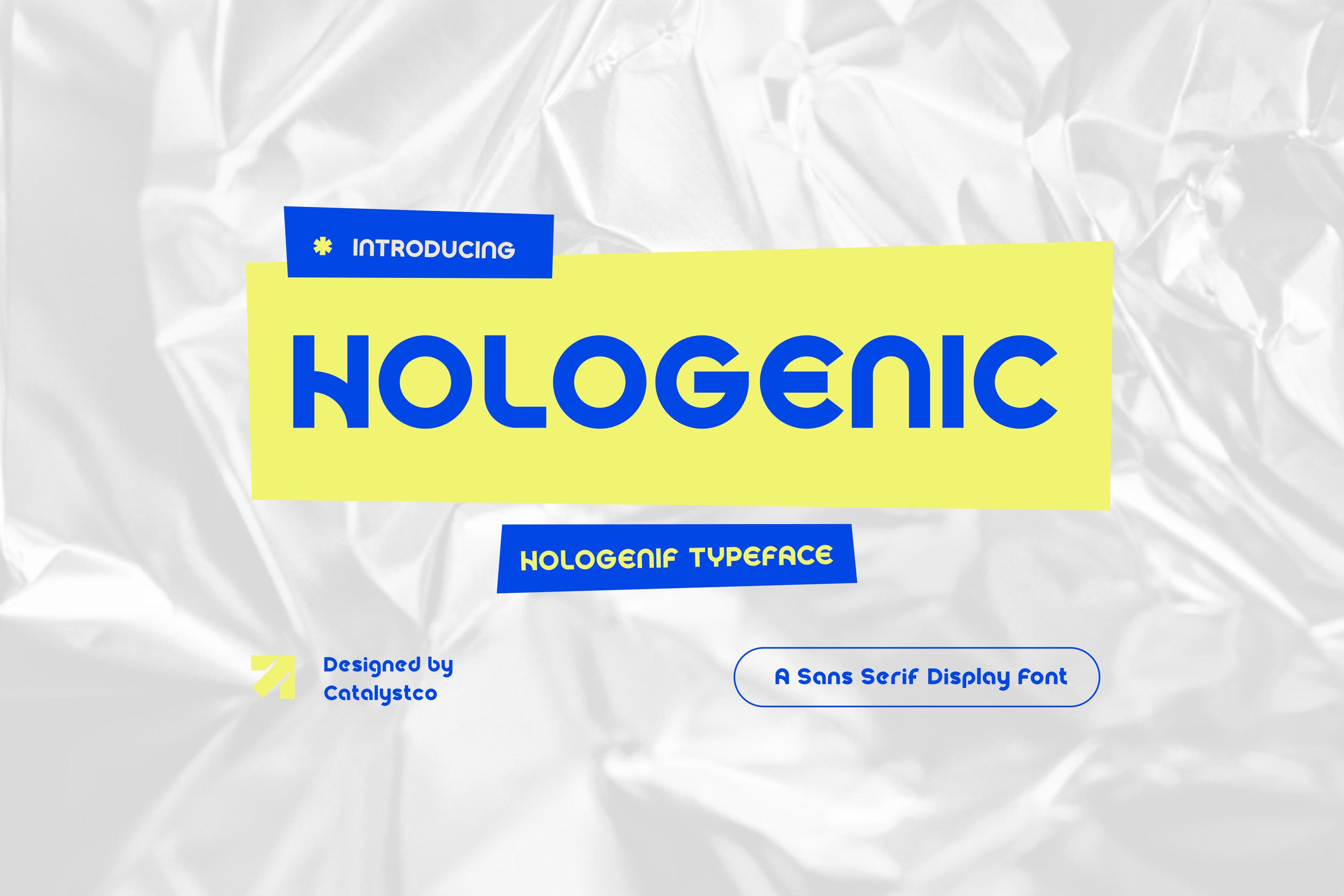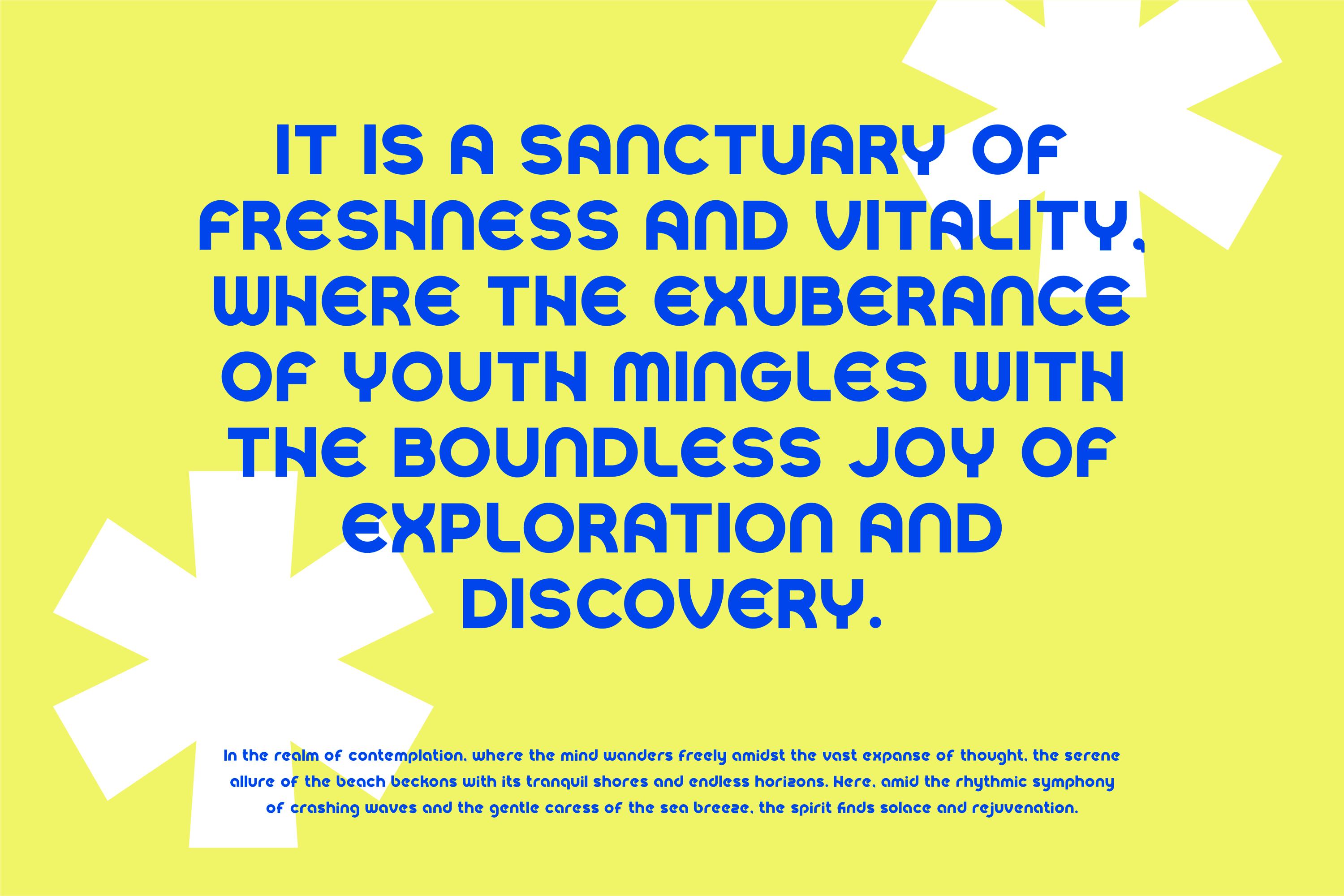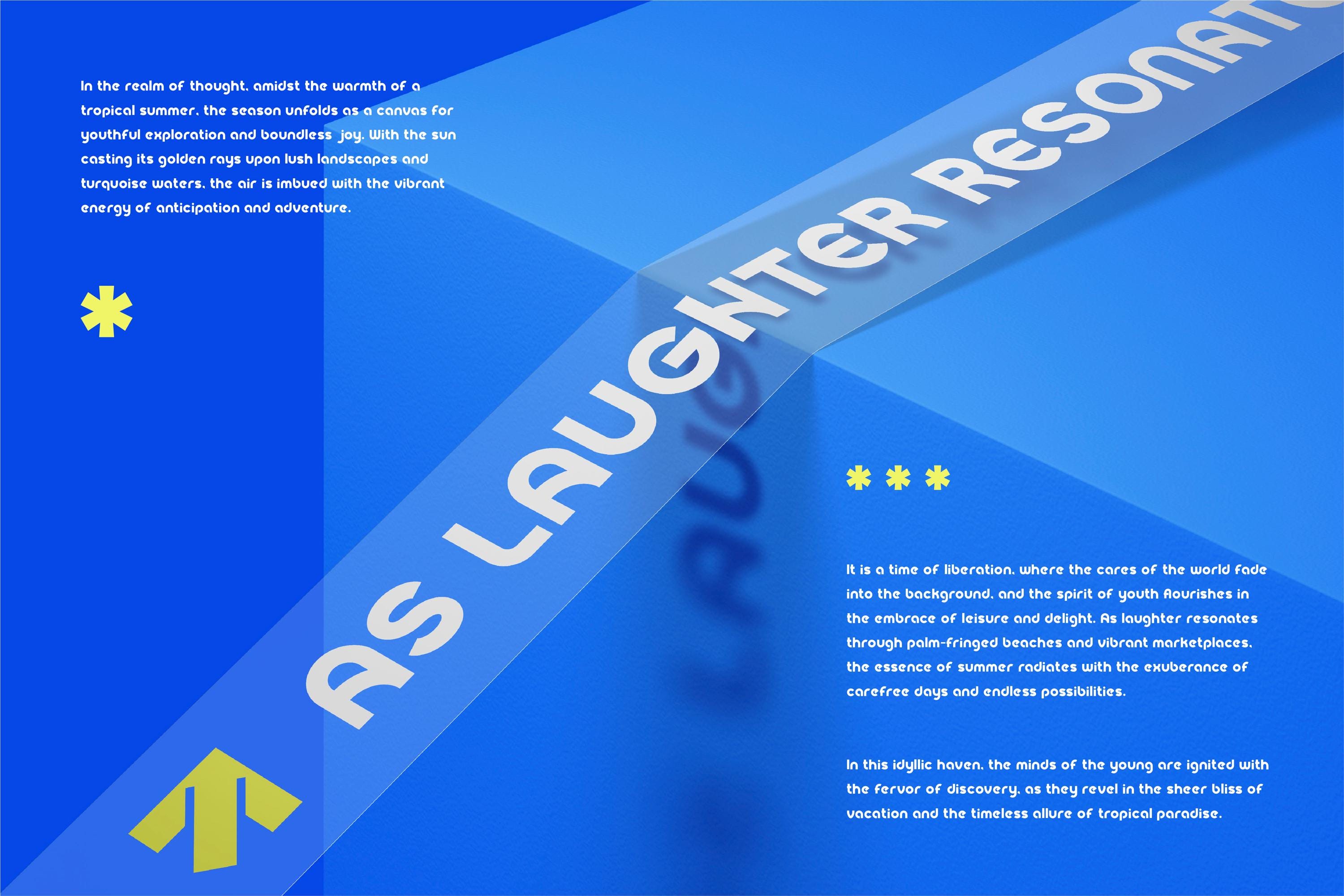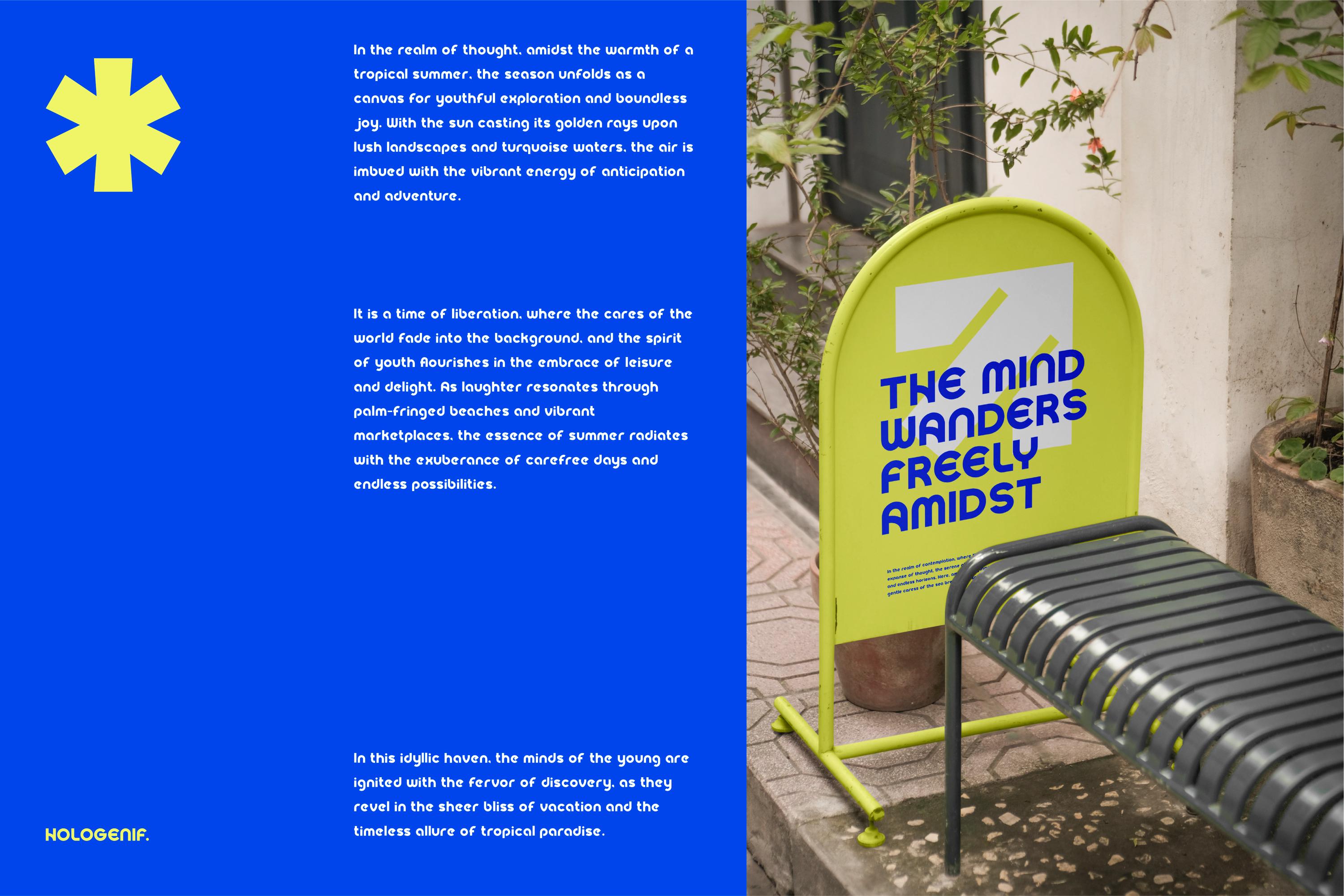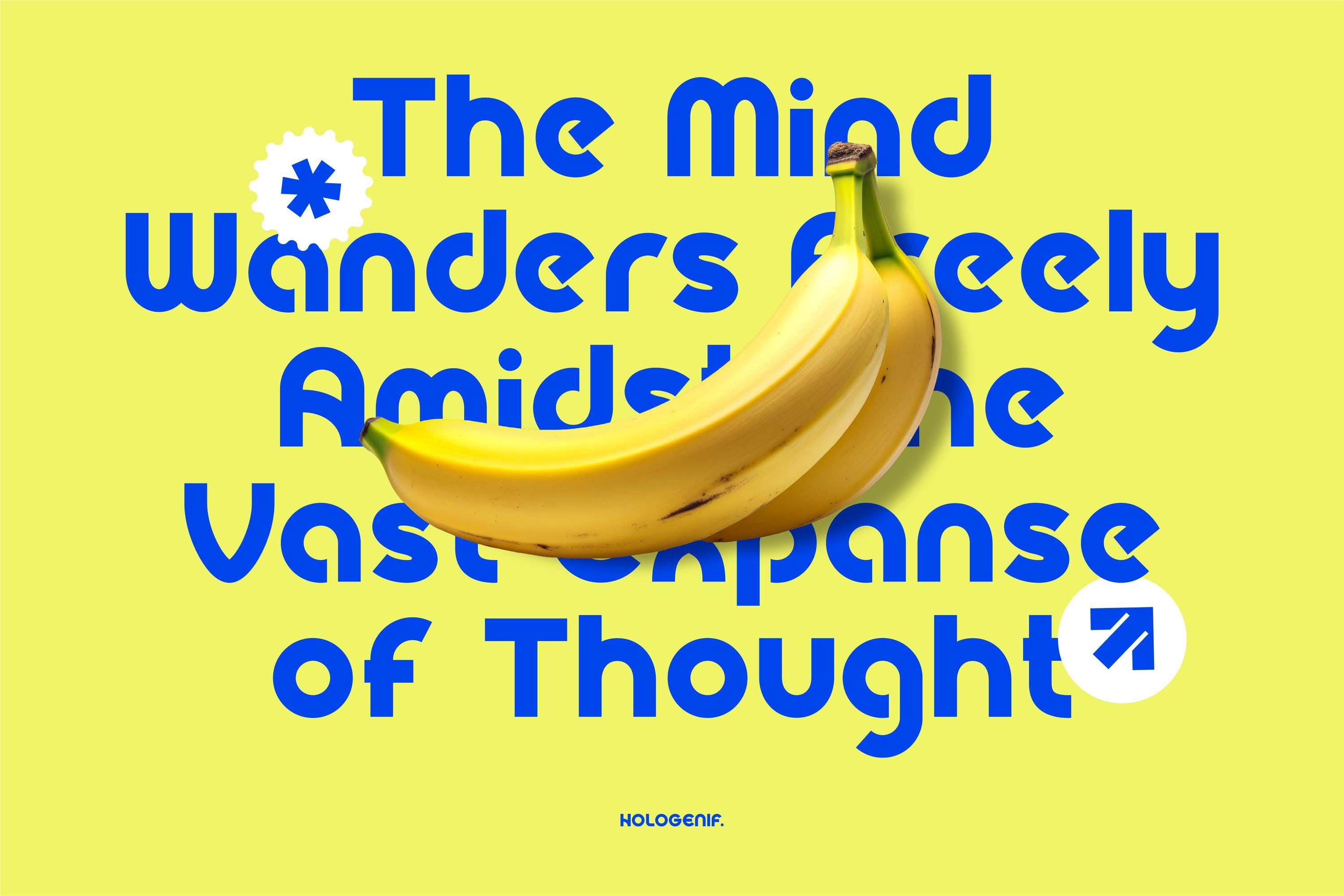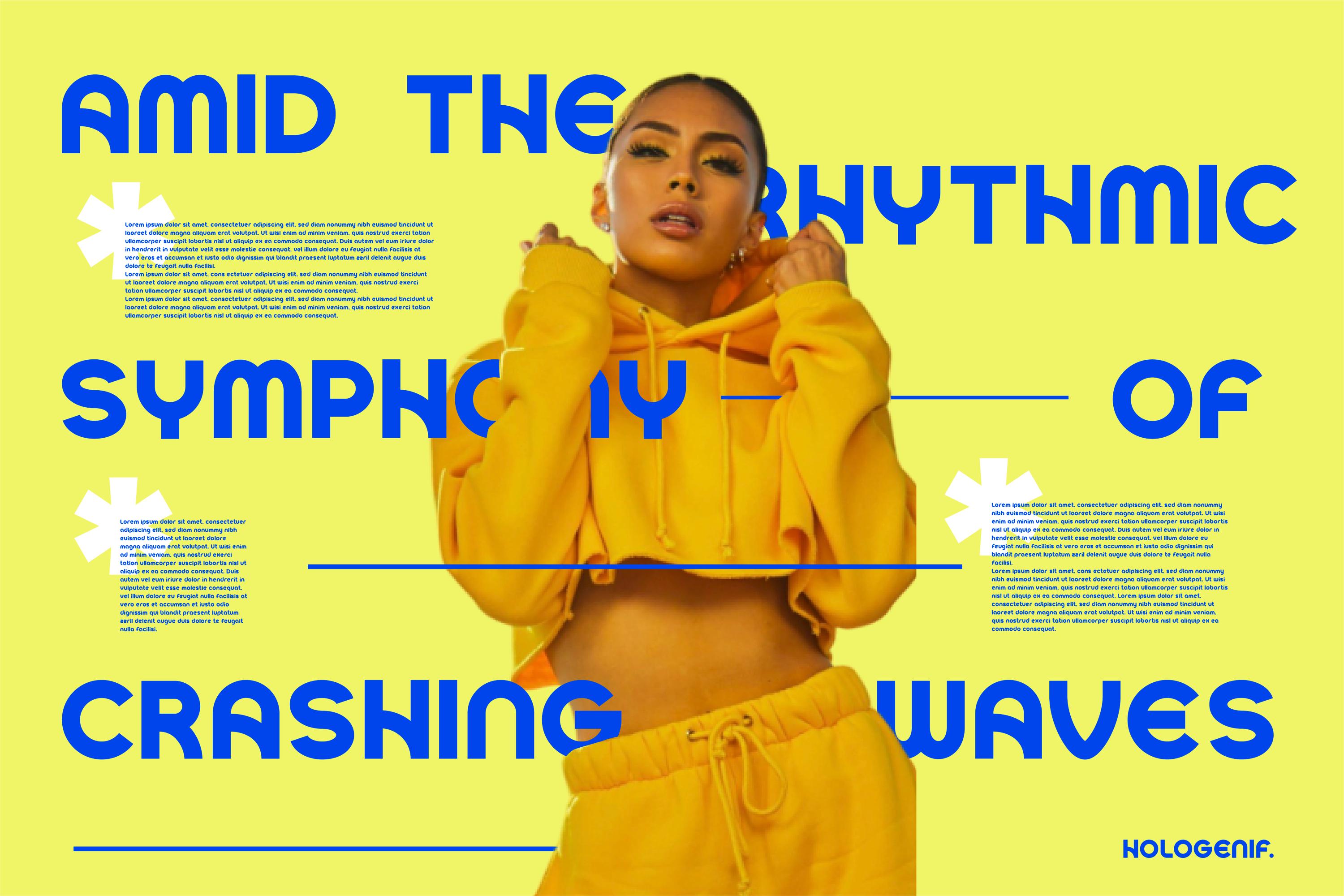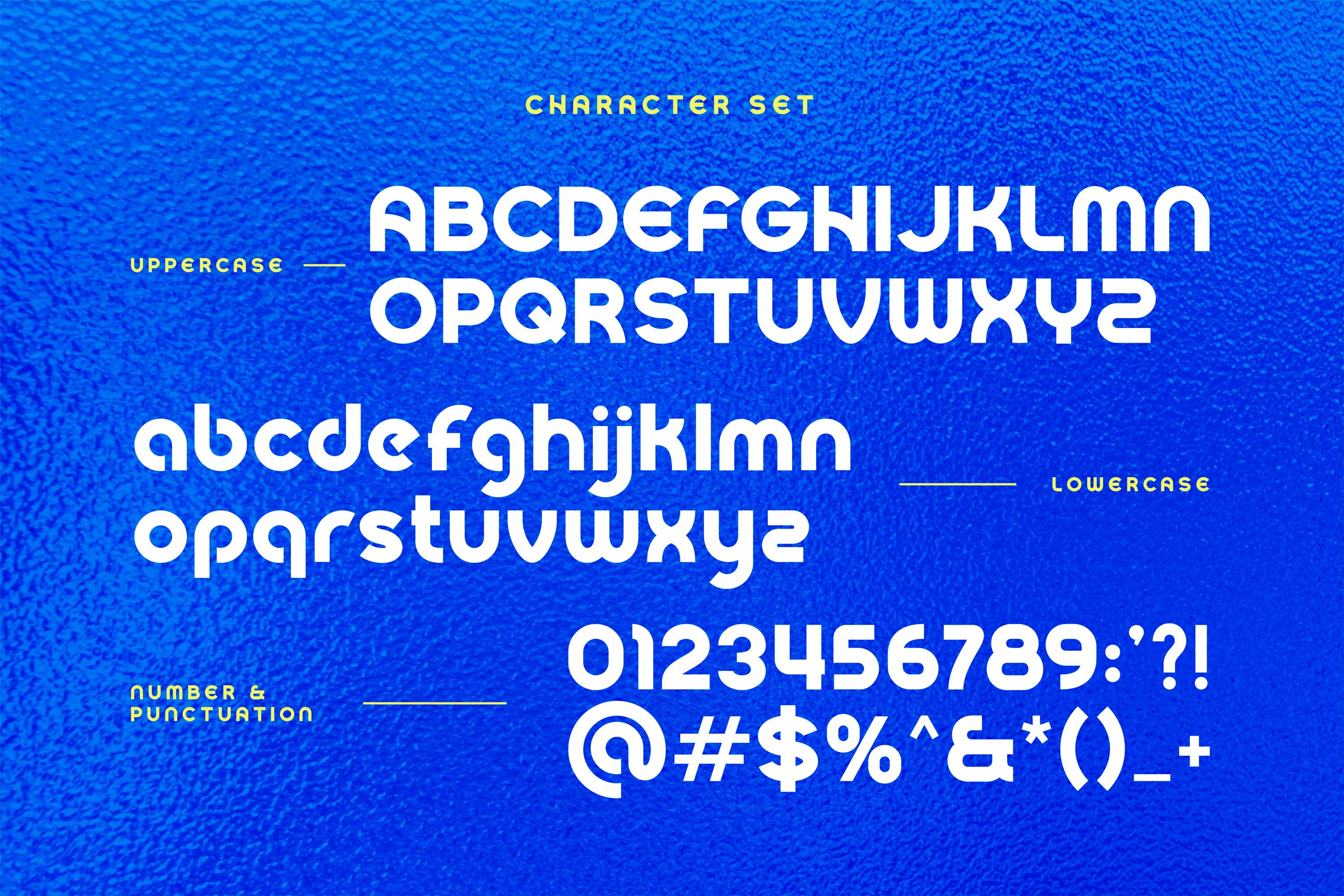
Introducing our new "Hologenic" Modern Font, boasting an Elegant Style, perfect for branding, logos, master heads, and myriad other applications.
Features :
- Multilingual
- Uppercase alphabet A-Z
- Lowercase alphabet a-z
- Alternate Character
- Numbers 0-9
- Some punctuation